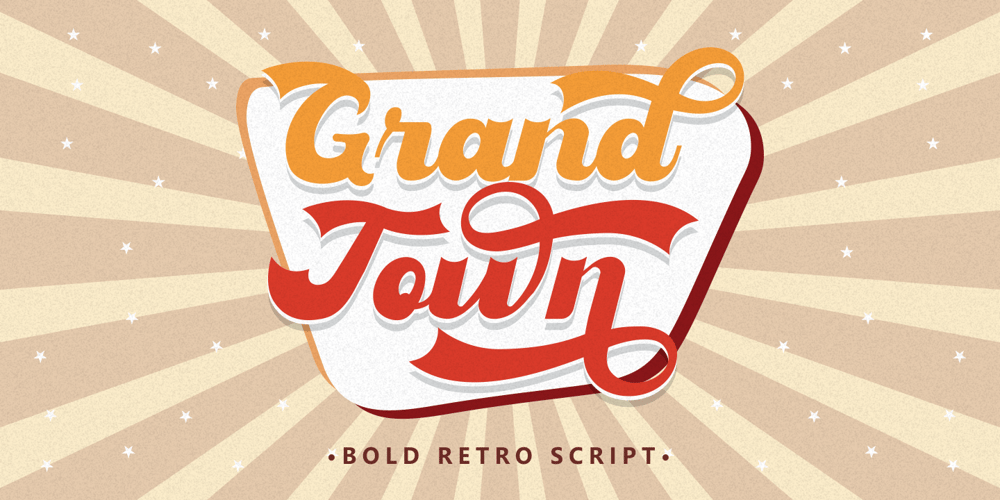
Grandtown Font Family was designed by Putra Novembria Candra Kusuma and published by Putracetol. Grandtown contains 1 styles and family package options. Introducing Grandtown – retro bold script style font. Inspired from retro typography and lettering in the 70’s and 80’s combine with bold typography style. With this font will bring you back to 70s feel.Grandtown is perfect for vintage and retro design, badge, logos, t-shirt, poster, branding, packaging, signage, book cover and so much more!Come with Opentype feature with a lot of alternates, its help you to make great lettering. This font is also support multi language.